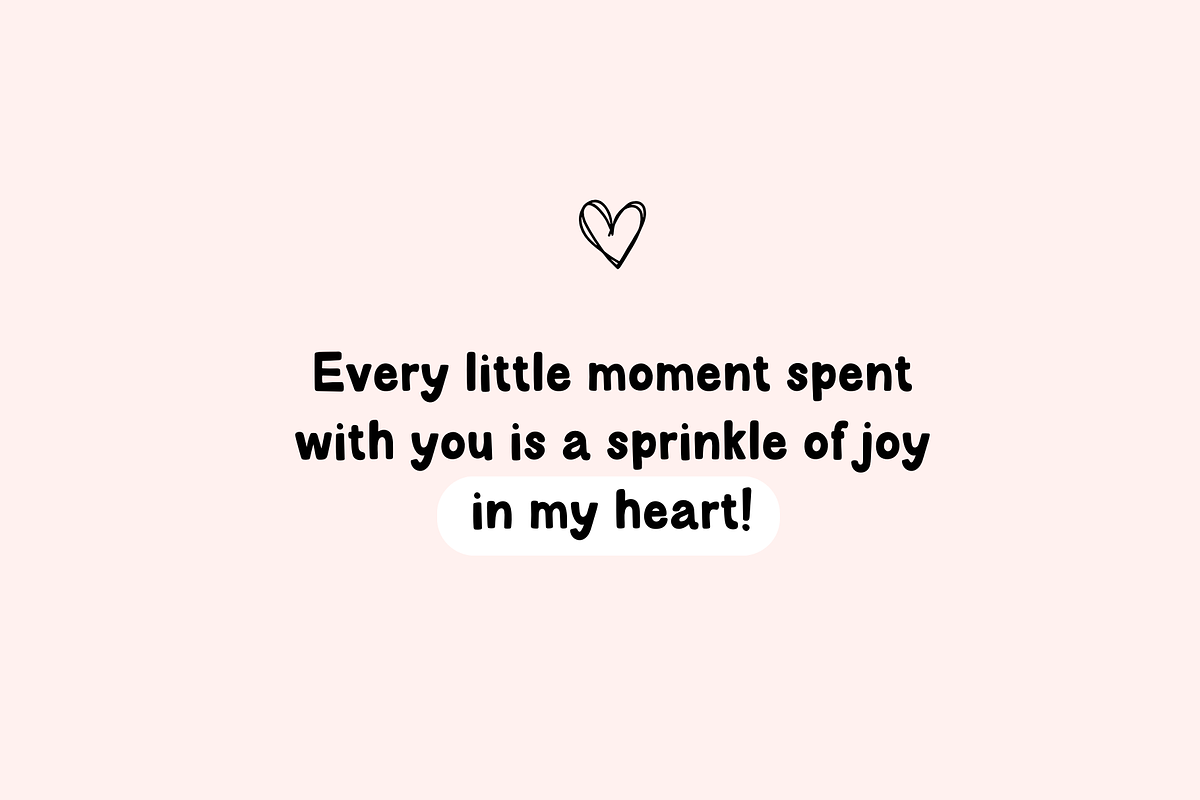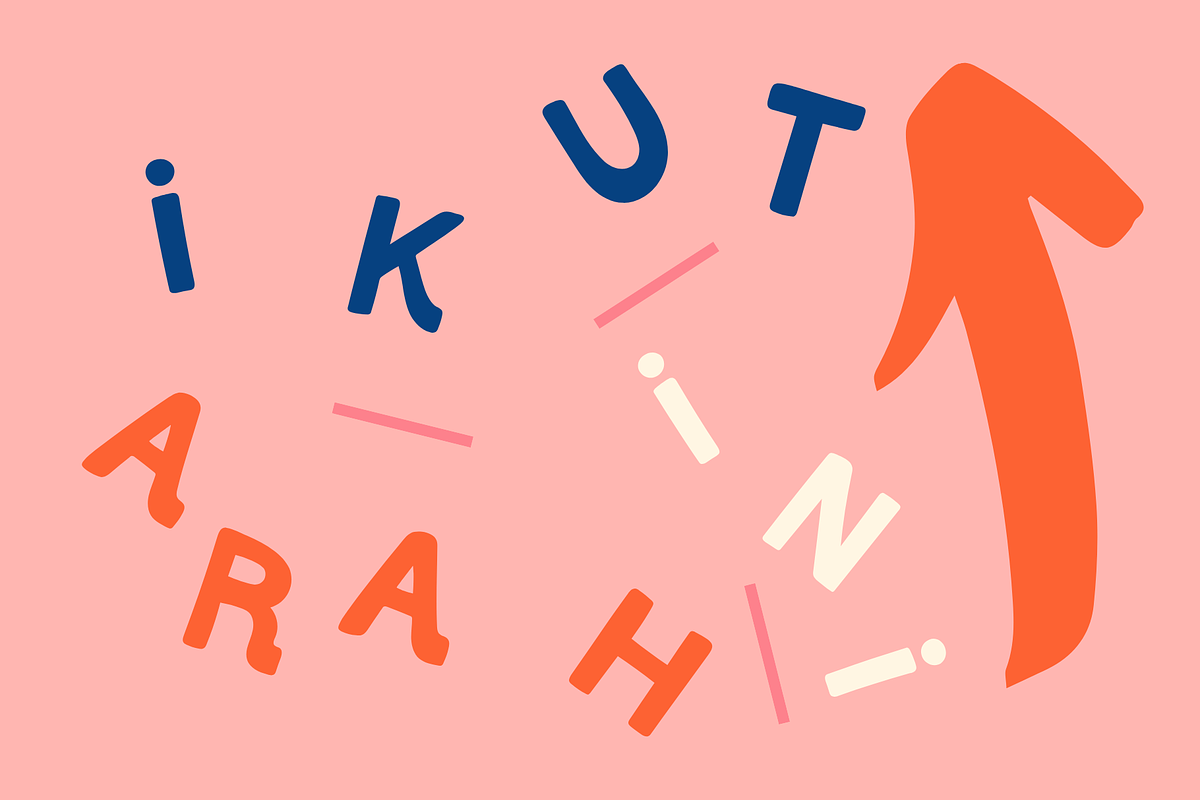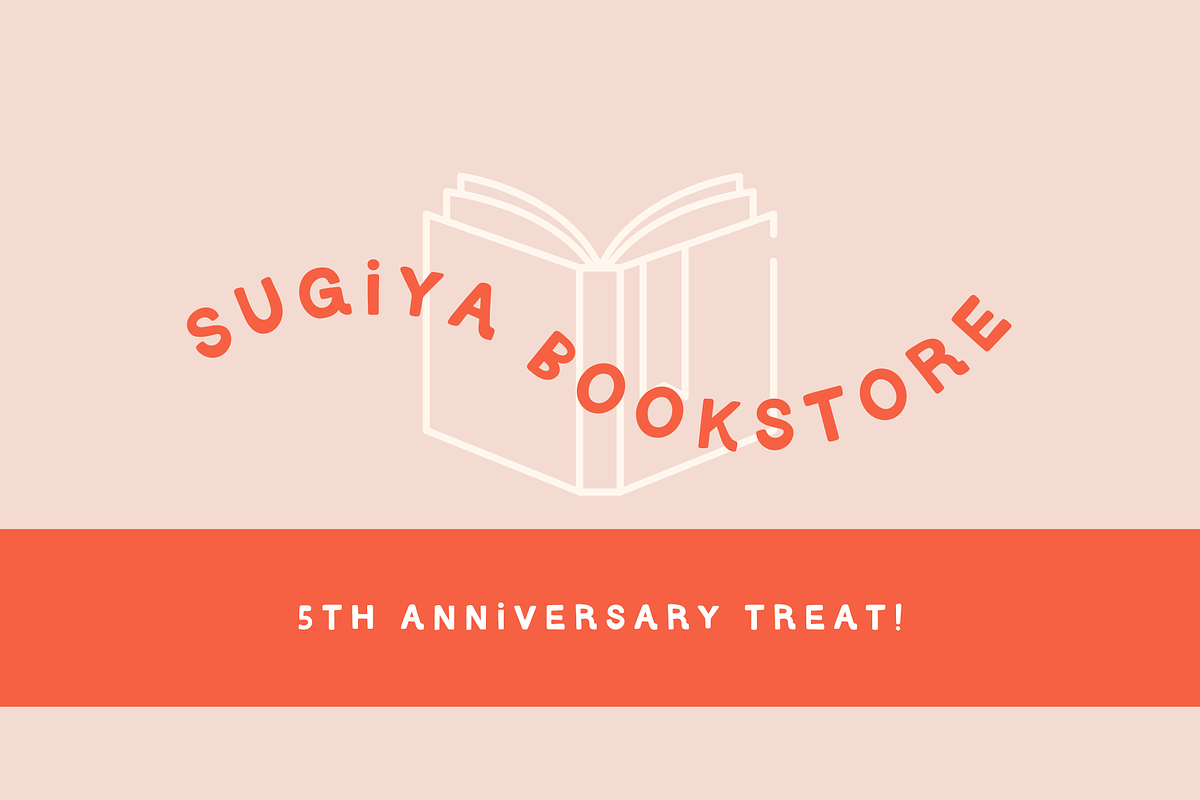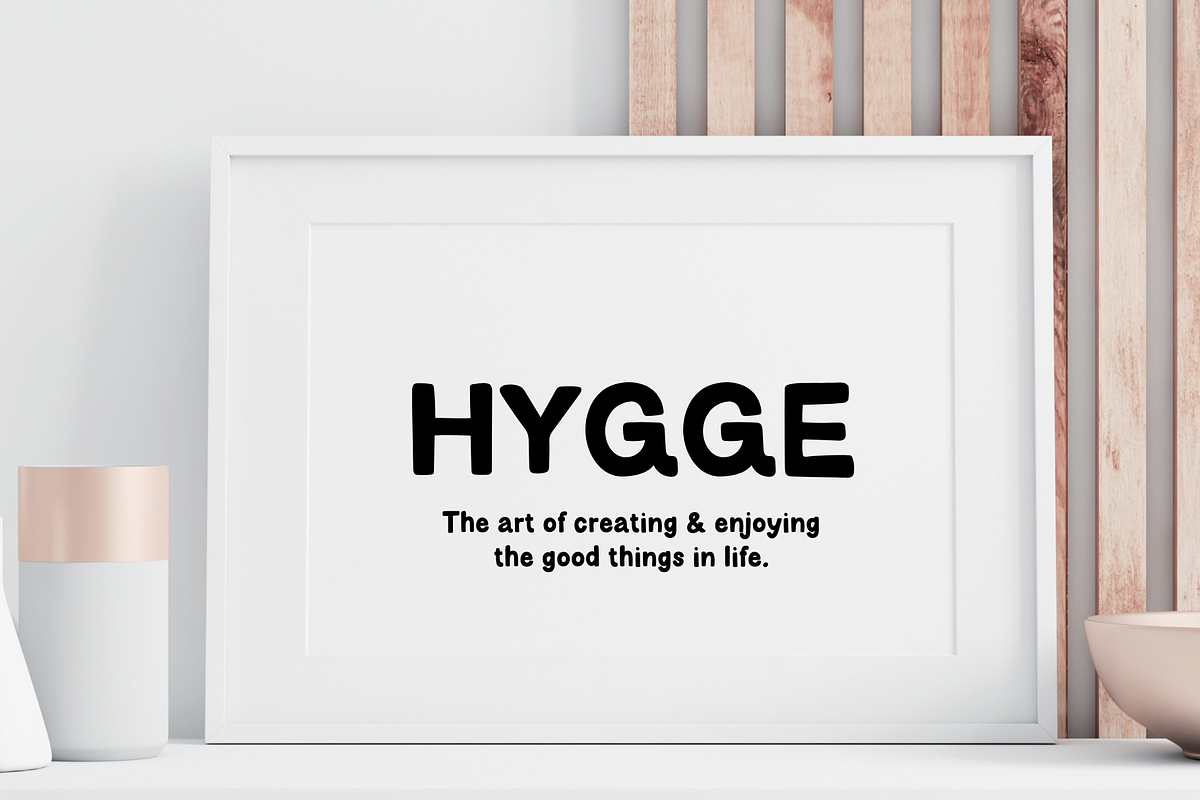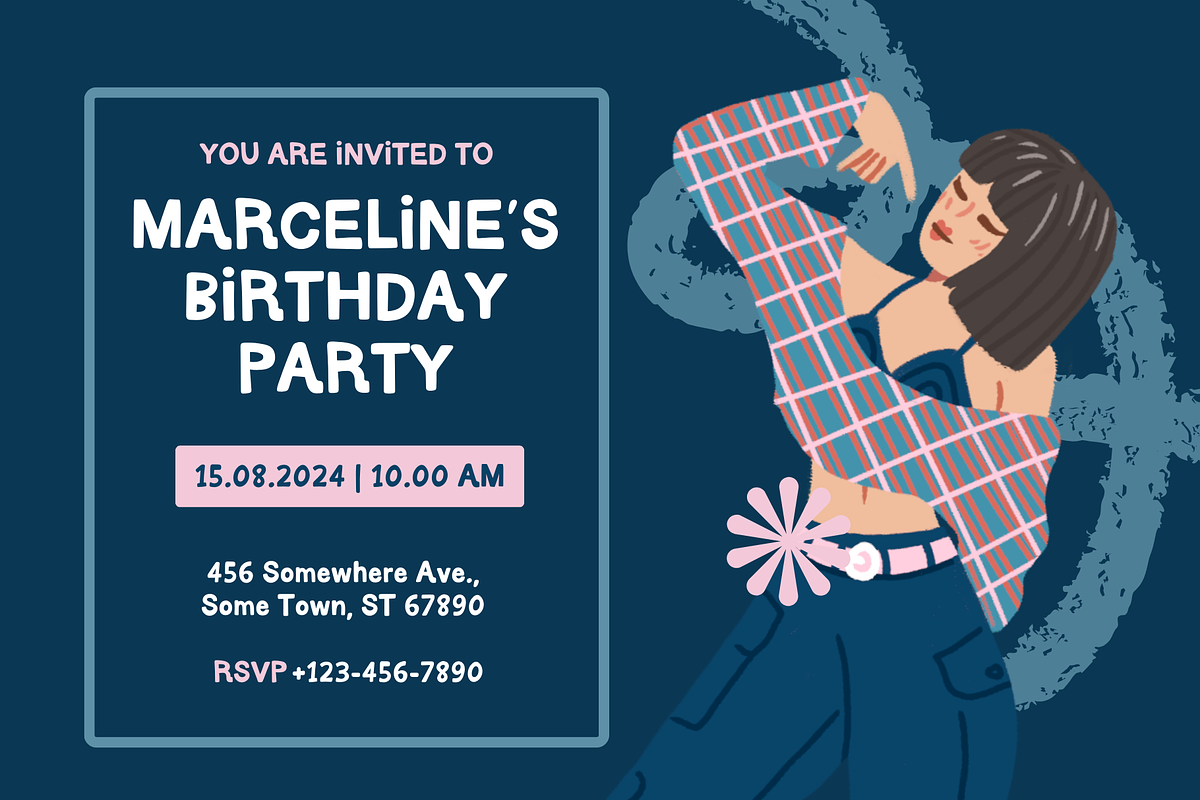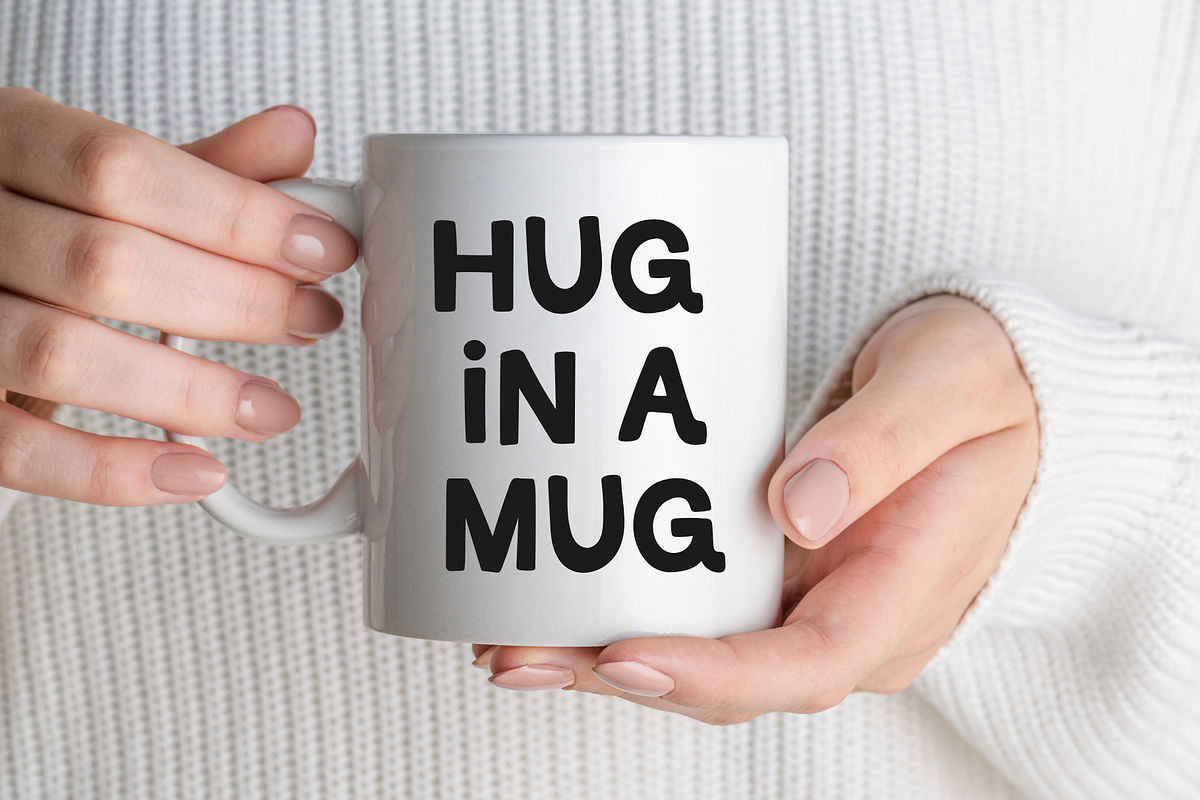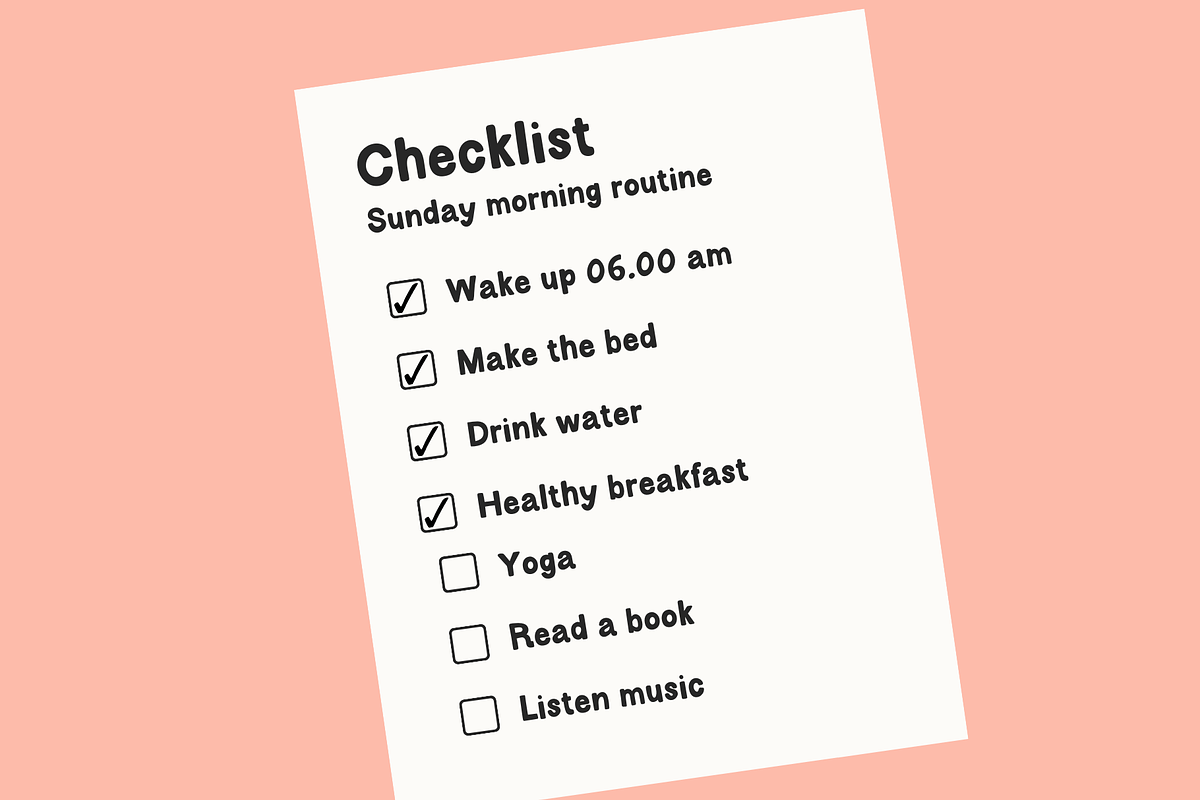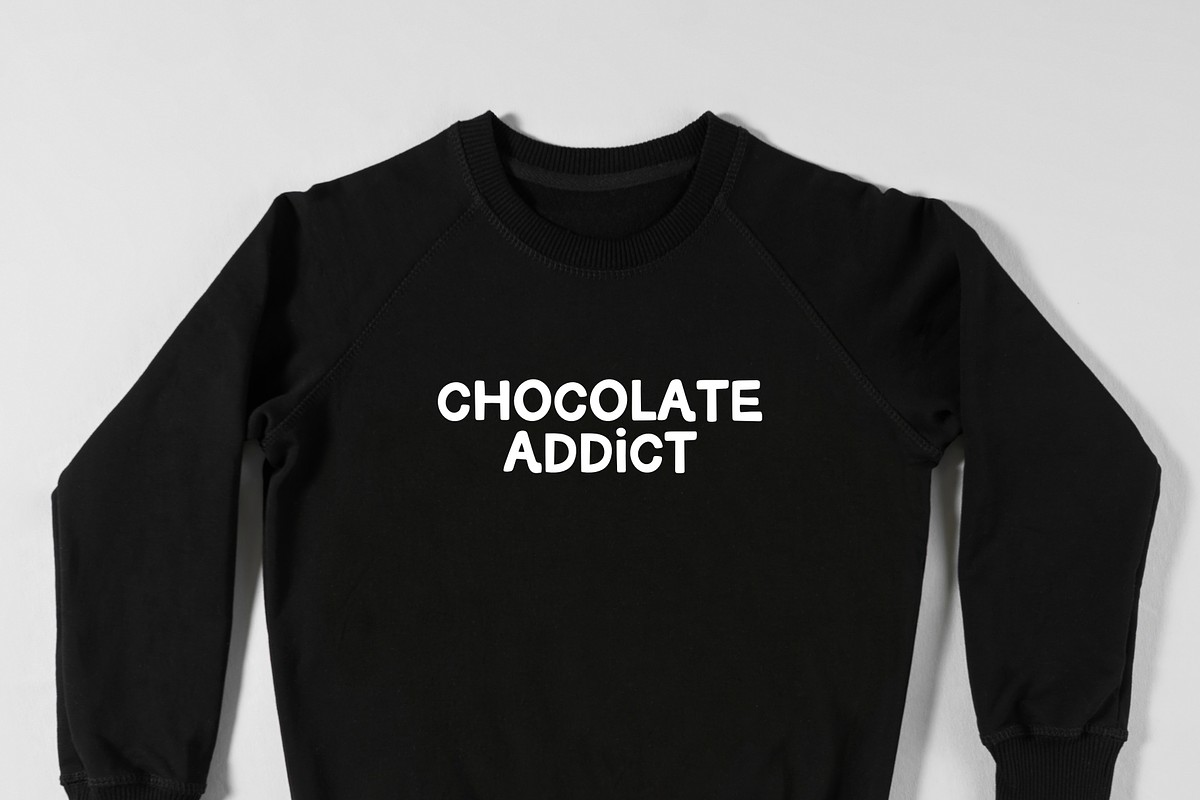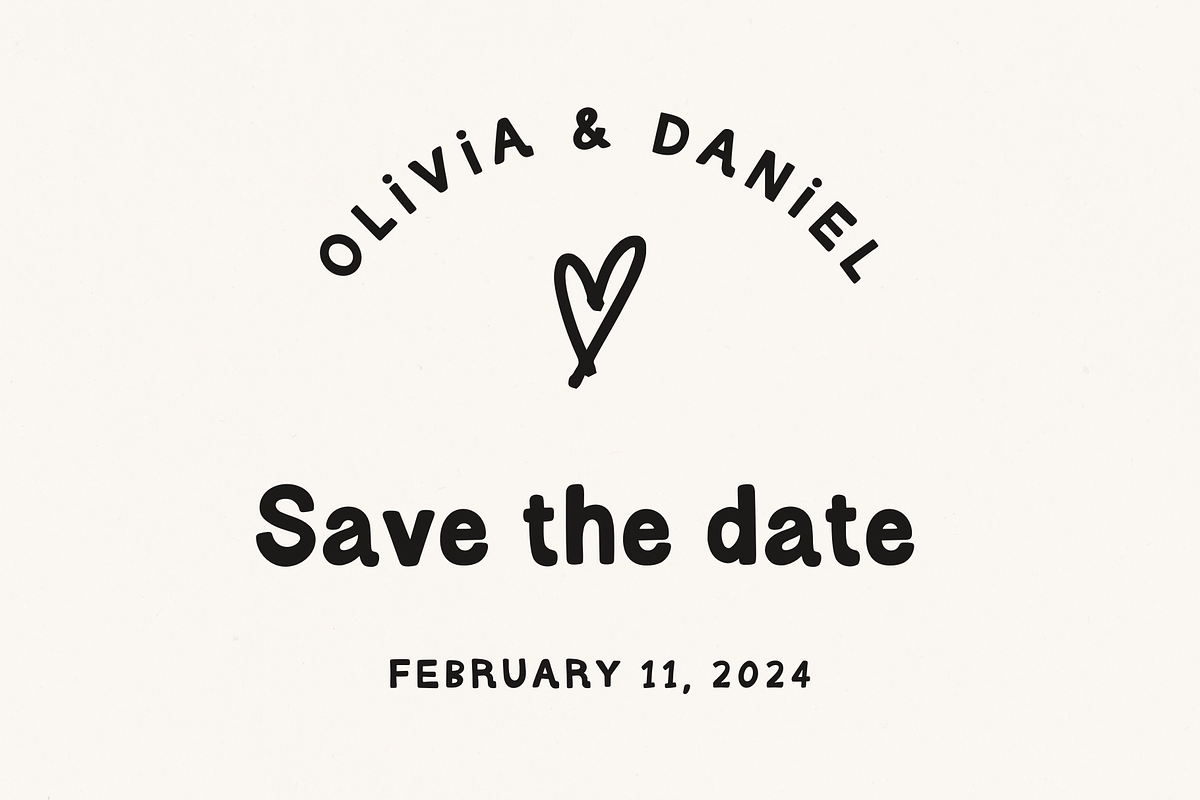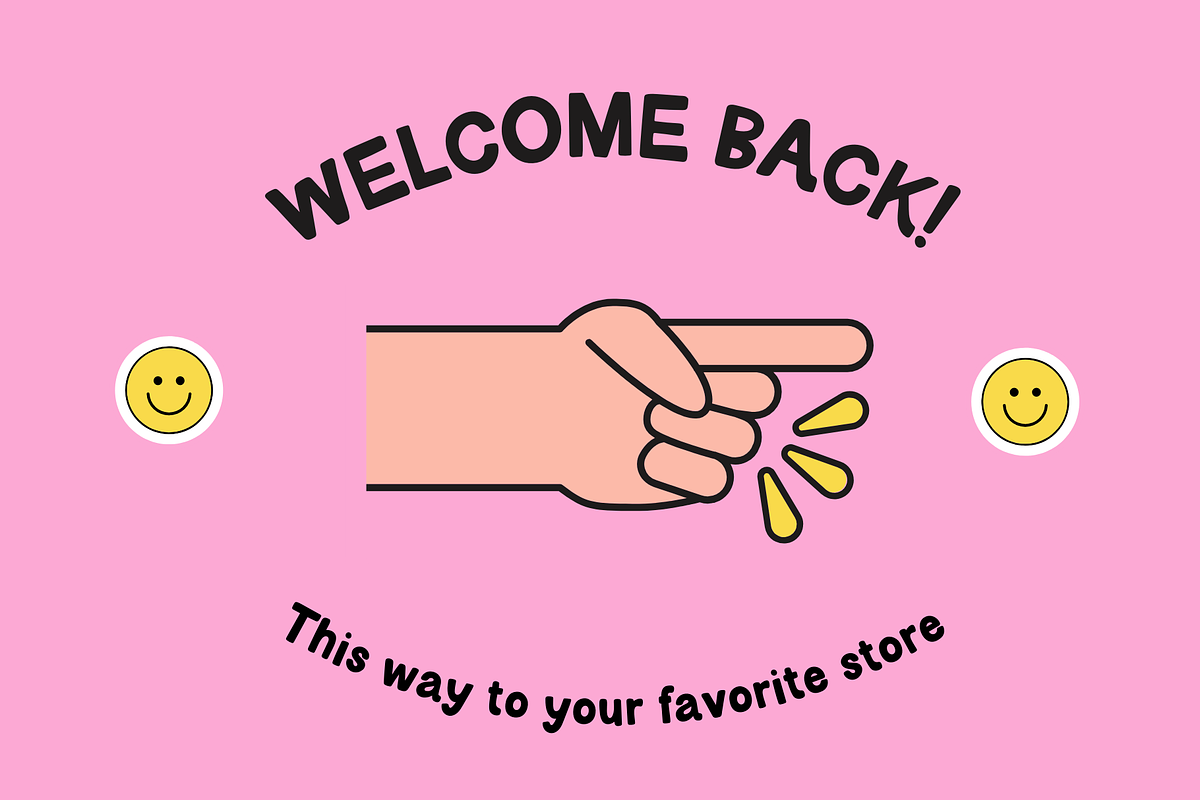
Bright Rush Font
Use the this font to create super cute logos, branding, notebooks, journals, labels, stickers, blogs, quotes, greeting cards, tea towels, apparel, pillows, mugs, toys, posters, baby clothing, picture books and so much more... basically anything that requires a cute and fun look! 😍